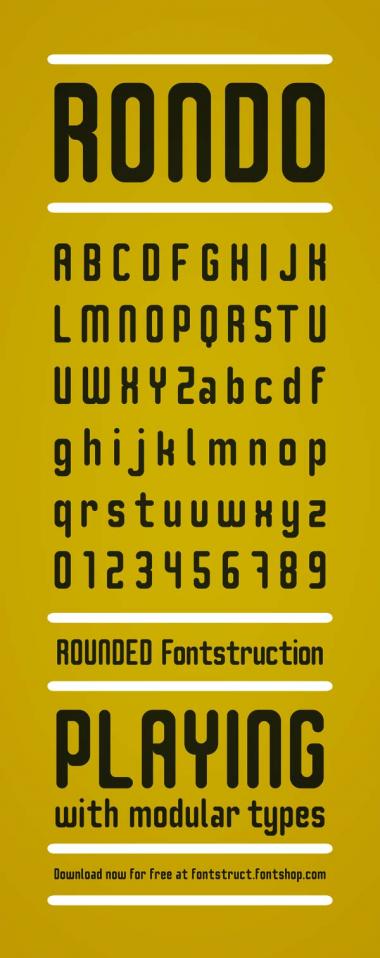
RONDO
Axel Leyer
unbelievable good.
as well a nice sample
Oh my,l what an achievement. The downward pull on the double-bowl glyphs is particularly apt. Love the l/c
a
&
e
. Very cool.